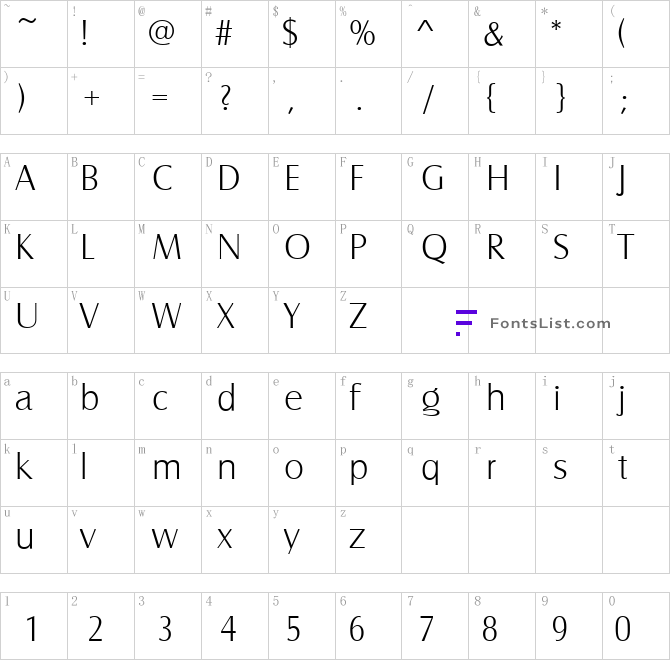
- Font Name:Canossa-Light
Canossa-Light-Regular.ttf is a very beautiful artistic font, Canossa-Light-Regular.ttf is widely used in the design and printing of various books and pictures,Canossa-Light-Regular.ttf has a strong visual impact,Canossa-Light-Regular.ttf is a commonly used font in newspapers, magazines and books, and is used in posters, e-commerce Poster design, store design, logo design, font design and other fields.Canossa-Light-Regular.